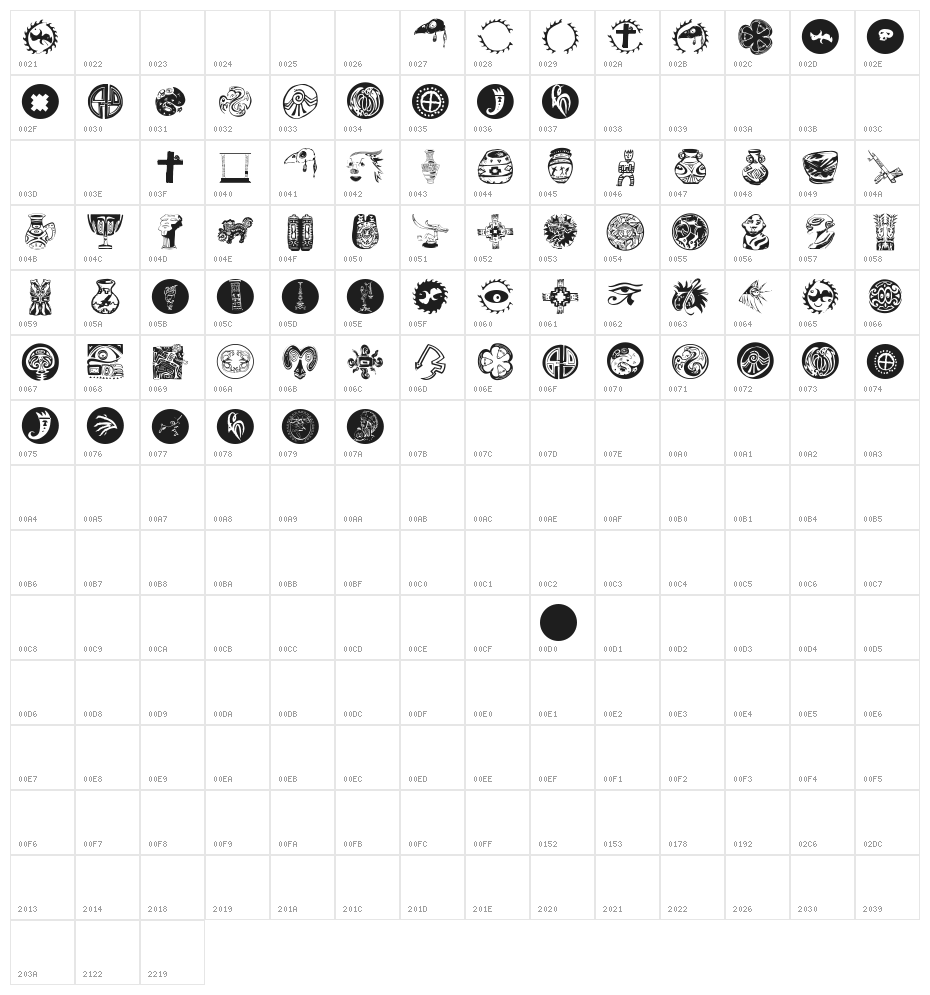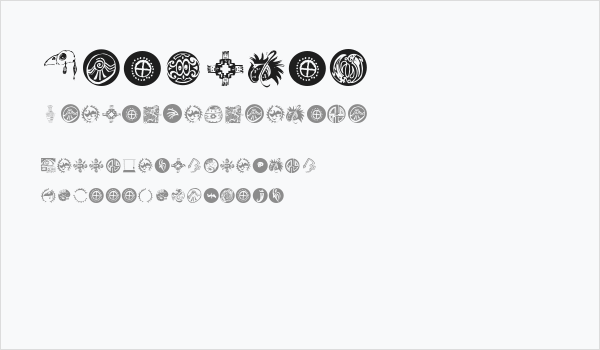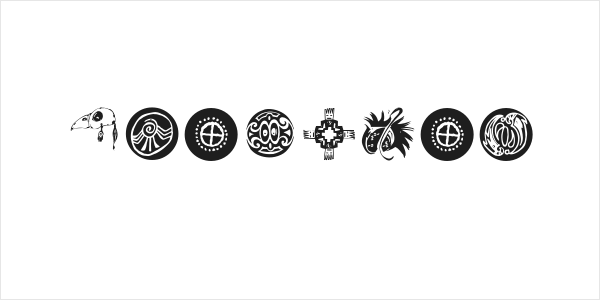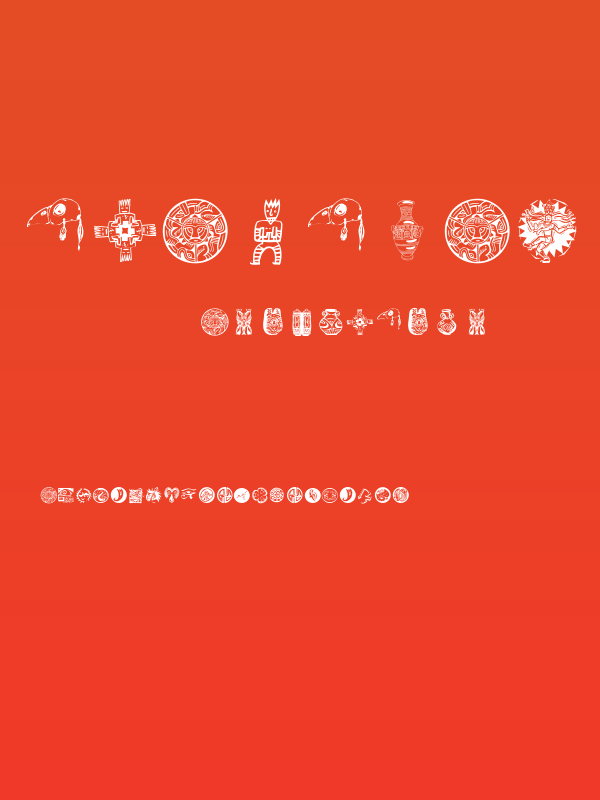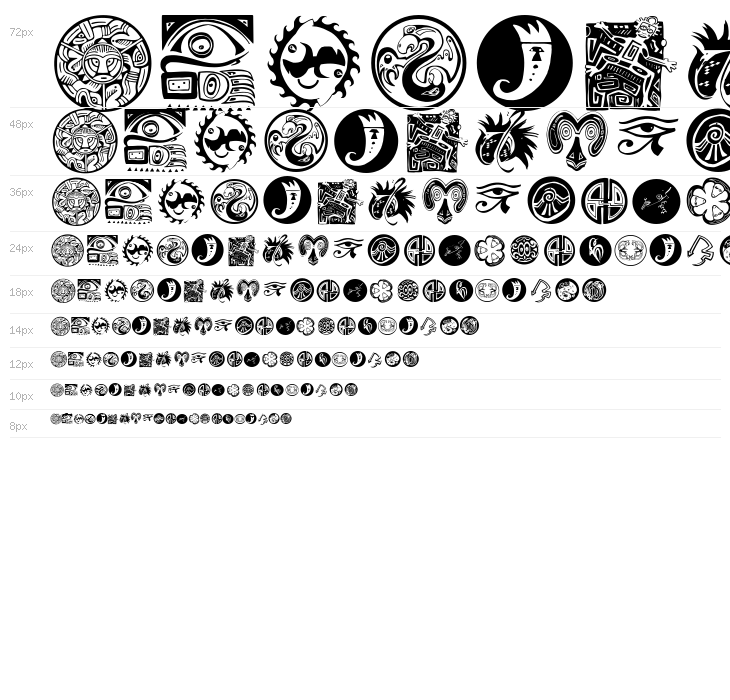
Artfacts Font
Artfacts Description
A decorative display font featuring intricate, hand-drawn symbols and pictograms inspired by indigenous and ancient art, with each character represented by a unique, detailed illustration. The style is bold and highly graphic, with strong contrasts and a mix of circular and angular forms, evoking a sense of cultural heritage and storytelling.
| Overall Style | Decorative, Tribal, Ancient, Artistic |
| Use Case | Logos, Posters, Headlines, Themed Graphics |
| Proposed Projects | Branding for cultural events, museum exhibits, educational materials, themed posters, album covers, and decorative signage. |